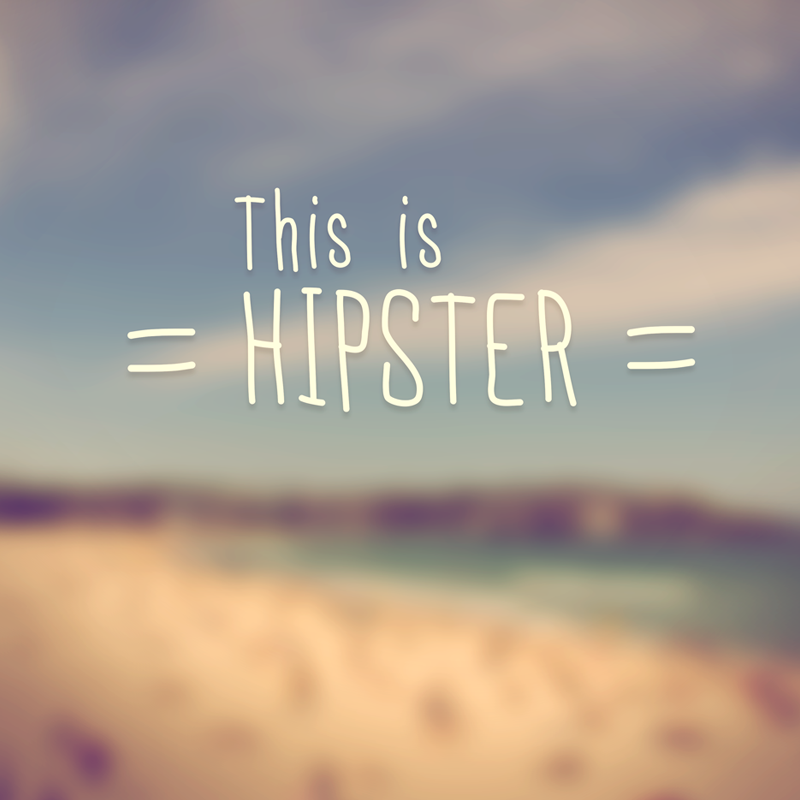
Font name: | Thin Font |
Author: | Hello I'm Flo |
Here is a fun thin font with a manual and irregular appearance. It contains most of the accents and special characters used in french and spanish. This font is free for a personal use only. Please contact me if you want to use it commercially. I created a Pro version of this font for commercial use. It's called FelTiPen Pro and available here : http://tinyurl.com/FelTiPenPro I hope you enjoy it! And if you like it, don't hesitate to congratulate my work by making a donation via the link under the download button! Thanks ! --- Voici une police mince avec un aspect manuel et irrégulier. Elle contient la plupart des accents et caractères spéciaux utilisés en français et en espagnol. Cette typo est disponible ici pour un usage personnel uniquement. Si vous comptez l'utiliser de manière commerciale, veuillez acheter la version Pro ici : http://tinyurl.com/FelTiPenPro J'espère qu'elle vous plaira ! Et si c'est le cas, n'hésitez pas à féliciter mon travail en faisant un don via le lien situé sous le bouton de téléchargement ! Merci ! |